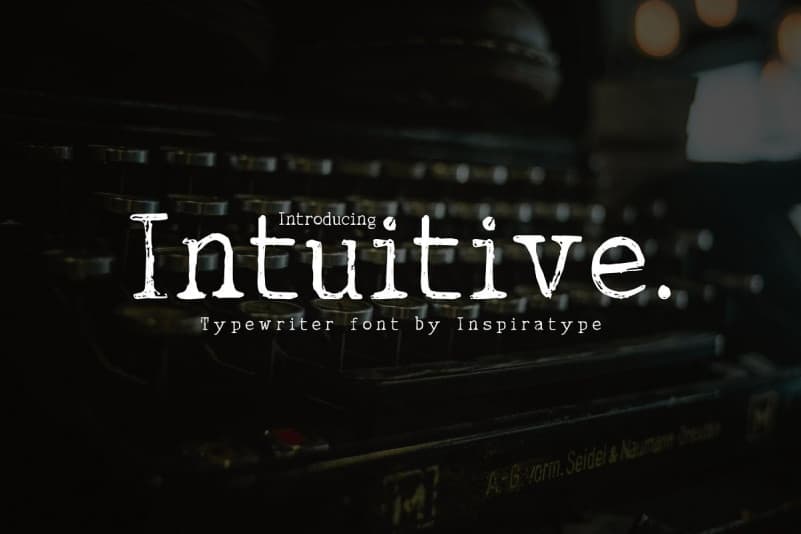
Intuitive Display Font
Let explore your inner creativity with the use of latest Intuitive is typewriter display sans font. Comes with uppercase, lowercase, numerals, punctuation and so many variations on each character include Open Type alternates, common ligatures and also additional swash to let you customize your designs.